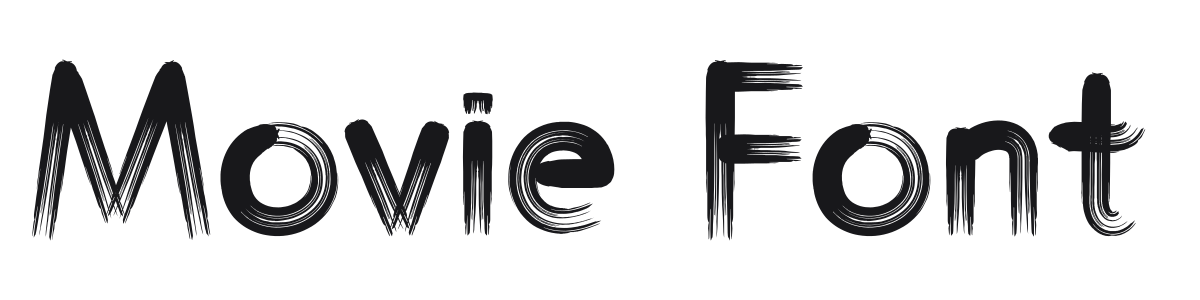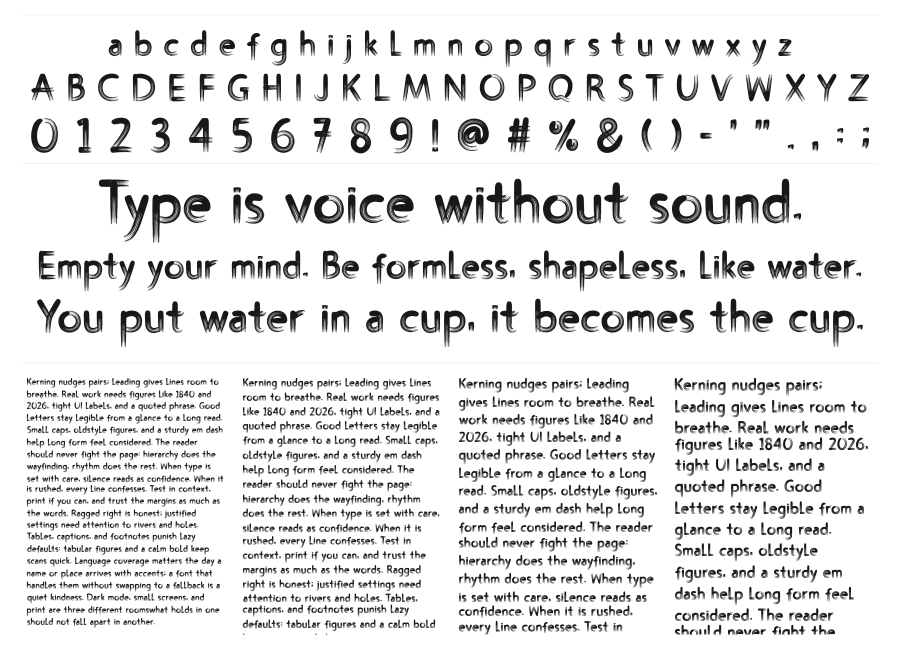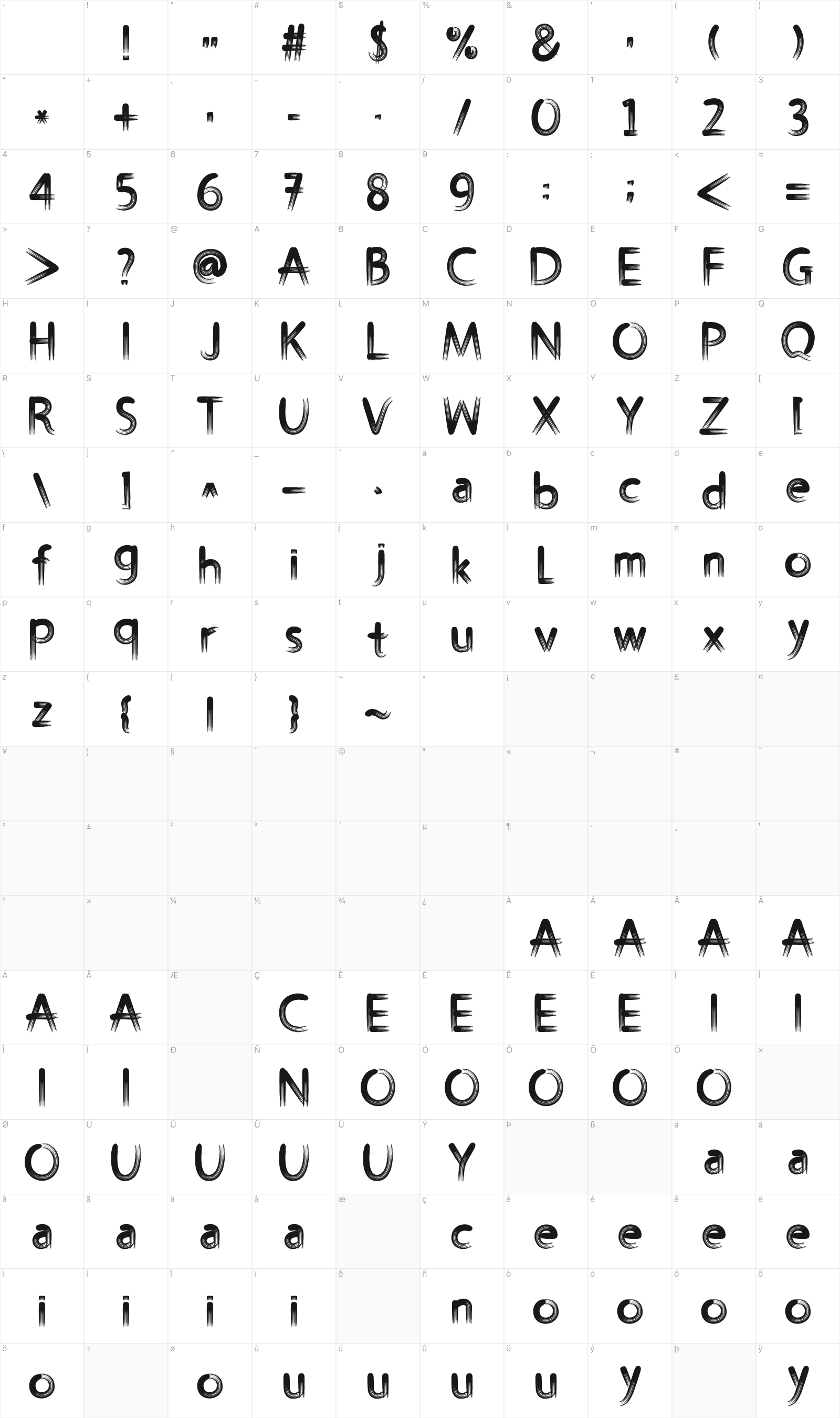
Movie Font
Movie Font is a bold brush-painted display face built from thick, bristle-streaked strokes that look like they were swept on with a wide paintbrush. The rough, textured edges and chunky rounded forms give it raw energy without sacrificing legibility at large sizes. It reads as intentionally imperfect, which makes it work naturally for film titles, posters, and anything that needs a handmade, high-impact feel.